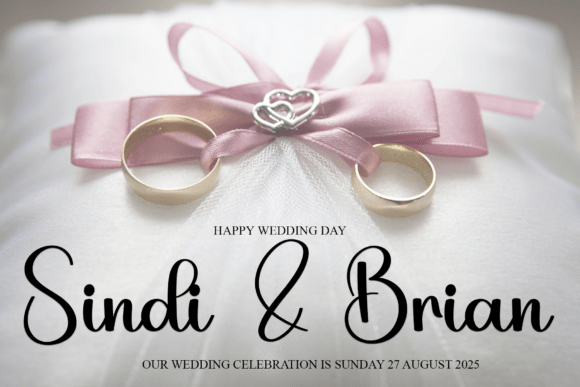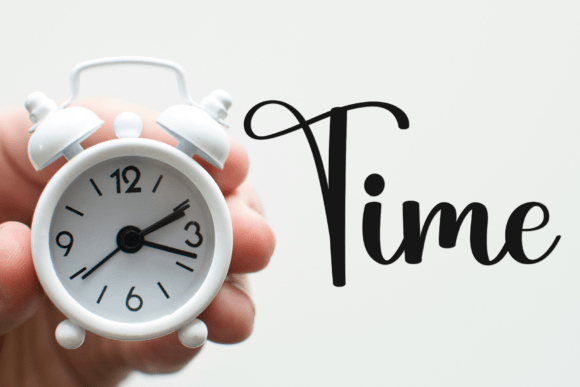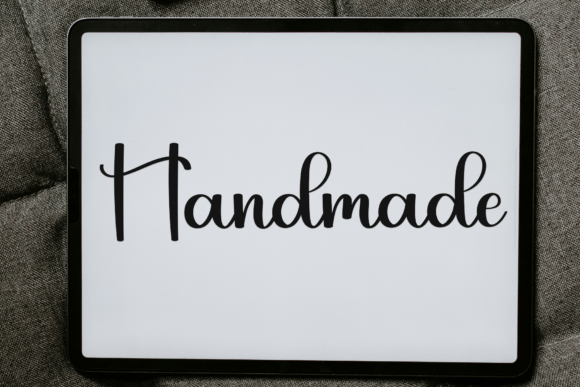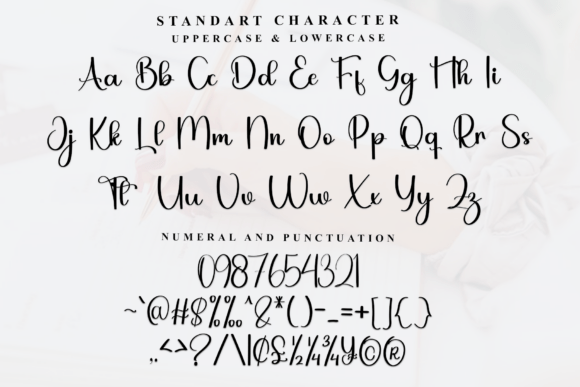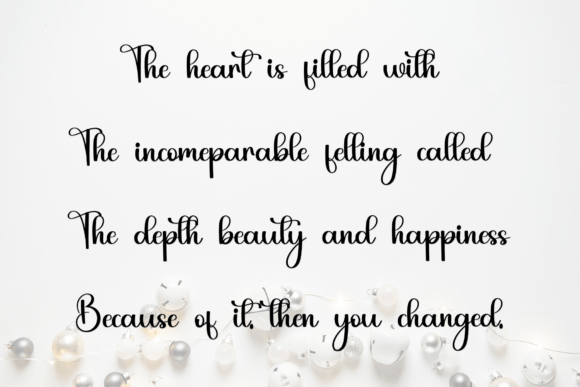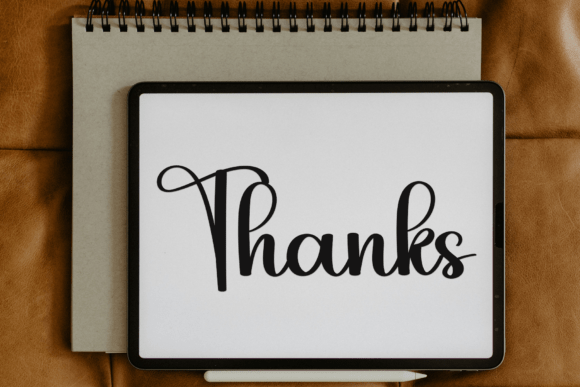
Discover the Timeless Elegance of Booming Font
Remember the moment you stumbled upon the perfect font for your wedding invitations? It’s a feeling of pure joy, isn’t it? The excitement of finding the perfect fit for your special day, the thrill of imagining how it will look on paper or screen – it’s a moment every designer and creative person can relate to. For those seeking a classic, elegant touch, the Booming Font is a lovely discovery.
Booming Font is a timeless script font that’s perfect for a variety of applications, from wedding invitations and cards to social media and websites. Its beauty lies in its versatility and sophistication, making it a valuable asset for designers looking to add a touch of elegance to their work. With its classic feel and modern charm, the Booming Font is sure to make a lasting impression.
Key Features of Booming Font
- Unique Characteristics: Booming Font features a bold, energetic design with a mix of modern and vintage elements, making it ideal for use in advertising, packaging, and other attention-grabbing applications.
Booming Font Review
Overall, I’m quite impressed with the Booming Font. It’s a fun, energetic font that’s perfect for anything related to music, entertainment, or excitement. Here are some of the things that work well: ✨
- Unique and catchy design – The font is sure to grab attention and stand out from the crowd.
- High-quality typography – The font is well-designed, with clear lines and a consistent style.
- Perfect for creative projects – Whether it’s a music festival, a movie premiere, or a new video game, this font is a great choice.
That being said, there are a few limitations to consider: ⚠️
- Limited versatility – While the font is great for creative projects, it may not be the best choice for more formal or professional applications.
- Not ideal for body text – The font is best used for headlines and titles, as the bold style can be overwhelming for large blocks of text.
Overall, I think the Booming Font is a great addition to any designer’s toolkit. It’s a fun, energetic font that’s perfect for the right projects. Just be sure to use it thoughtfully and in context.
Getting the Most Out of Booming Font
To get the most out of Booming Font, experiment with different font sizes, colors, and styles to create a unique visual effect. You can also use Booming Font in combination with other design elements, such as images and graphics, to create a dynamic and engaging design.
Booming Font is commonly used in designs that require a bold and attention-grabbing text effect, such as:
- Announcements and notifications
- Call-to-actions and promotions